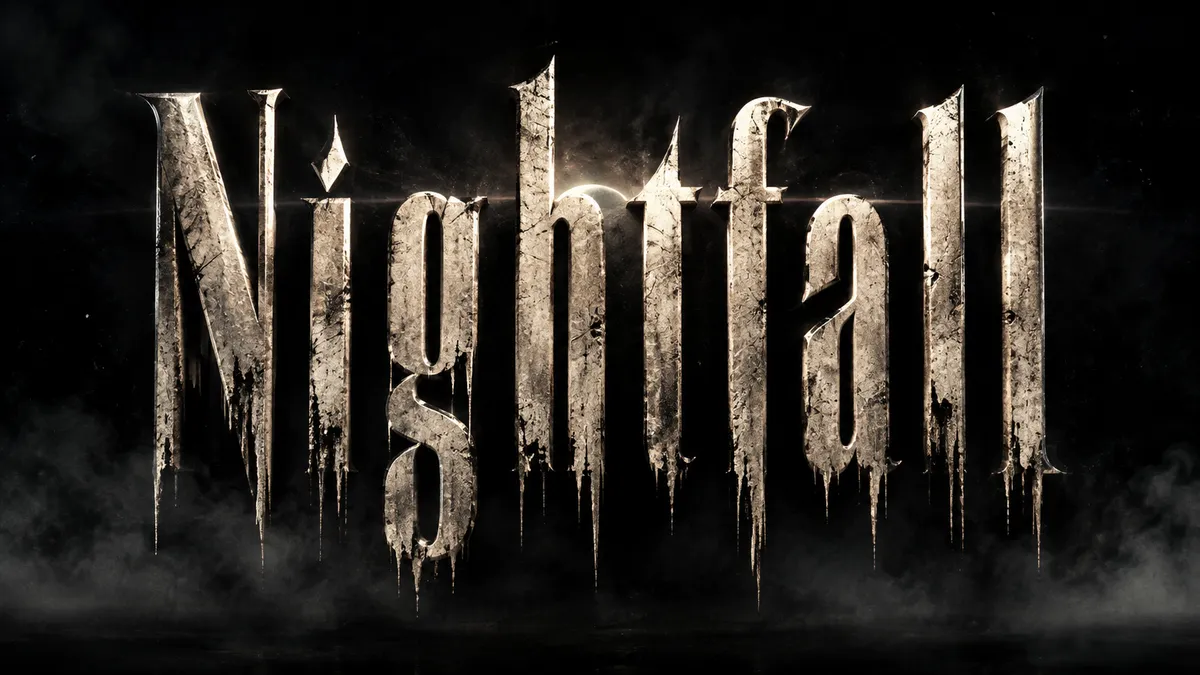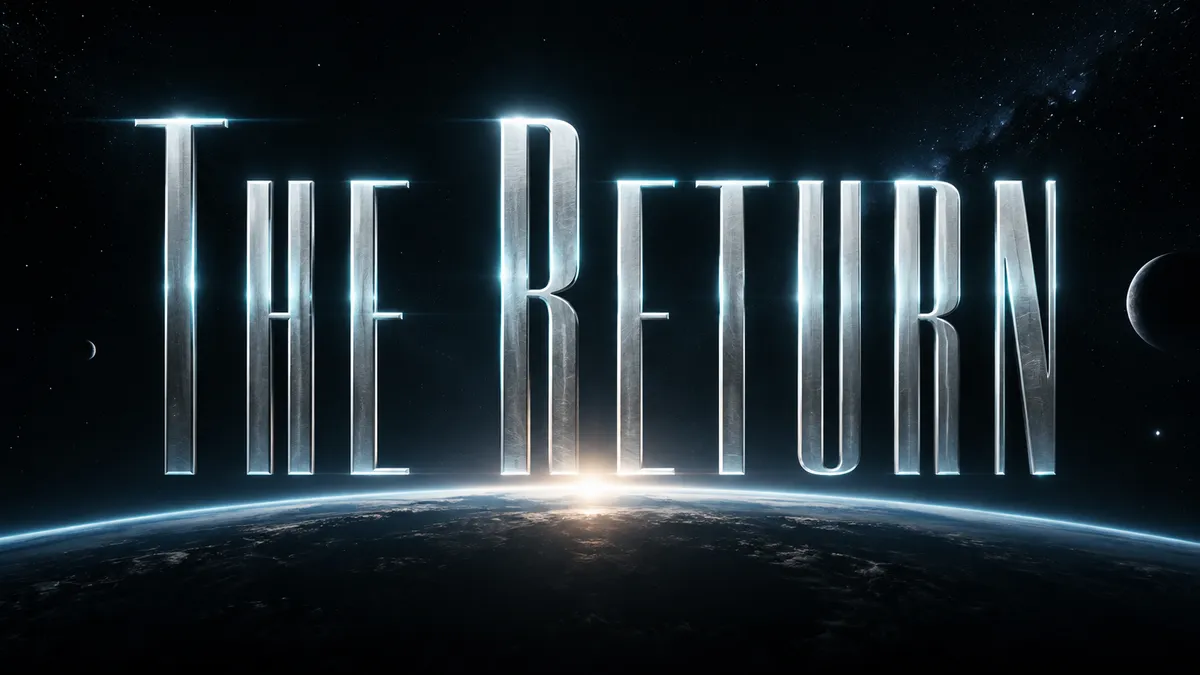
Cinematic title cards and poster type in 16:9. Blockbuster, horror, sci-fi, or prestige drama.
A movie title is a promise about the film, and the type carries most of it. The Fontique movie title generator renders your name or phrase as a cinematic title card: widescreen composition, dramatic lighting, atmospheric backgrounds, and the letterform conventions of each genre, from tall condensed blockbuster capitals to scratched horror type and thin, wide sci-fi lettering.
Presets are organized by genre rather than by specific films, so you get the movie poster font language without copying anyone's logo. Blockbuster gives you metallic condensed caps with lens flare, Horror Scratch drips and distresses, Sci-Fi Wide stretches thin letters across the frame, Prestige Serif keeps things quiet and elegant, and Streaming Red does the bold sans-on-black look of modern series art.
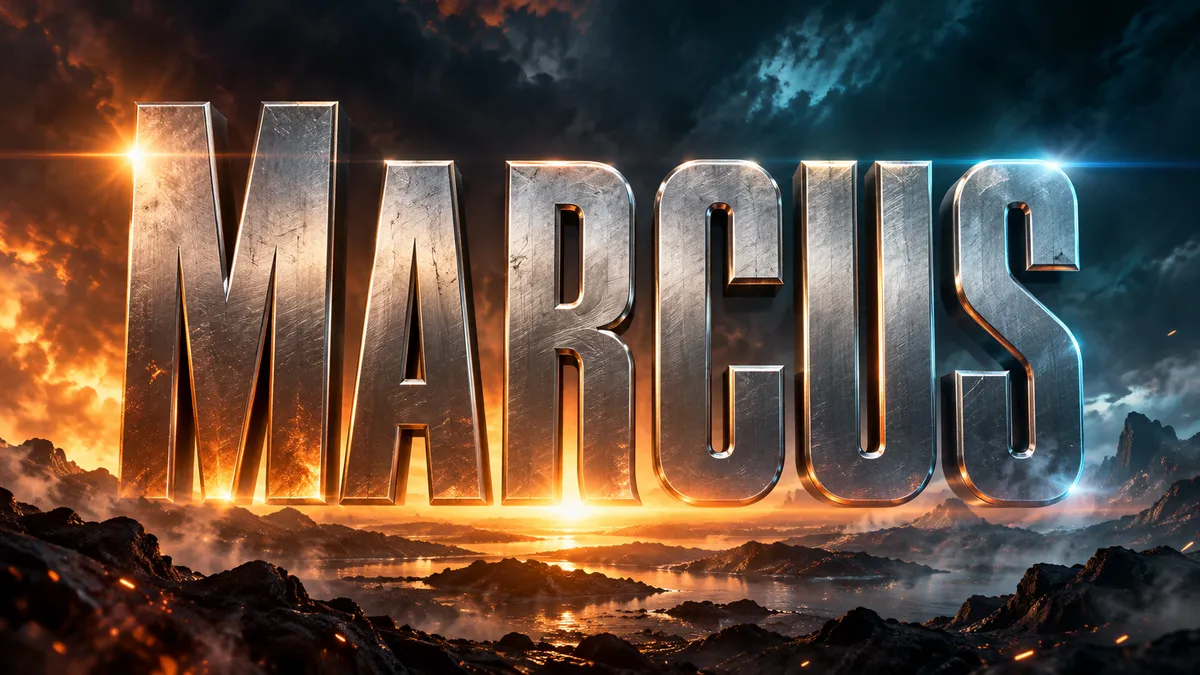
Each preset changes material, lighting and backdrop while keeping "Marcus" perfectly legible.
Blockbuster
massive condensed steel capitals with beveled edges, orange and teal lighting, lens flare, explosive summer action poster energy
Horror Scratch
distressed scratched letters with dripping edges and uneven spacing, pale bone color, grainy and unsettling
Sci-Fi Wide
ultra-thin extended letters stretched across the frame, cool white with cyan edge light, minimal and futuristic
Prestige Serif
elegant high-contrast serif capitals with wide tracking, soft cream color, restrained awards-season drama poster feel
Streaming Red
bold tall red sans-serif capitals with slight 3D depth and a subtle shadow, glossy, modern series title card
Yes. Type your name, choose a genre preset such as Blockbuster or Prestige Serif, and the generator renders it as a cinematic title card in widescreen. It works for birthday posters, fan trailers, and social profile banners alike.
No. The presets are built around genre conventions such as condensed action capitals, distressed horror type, and thin sci-fi lettering rather than any specific film or studio logo. You get the feel of a movie poster font without reproducing protected artwork.